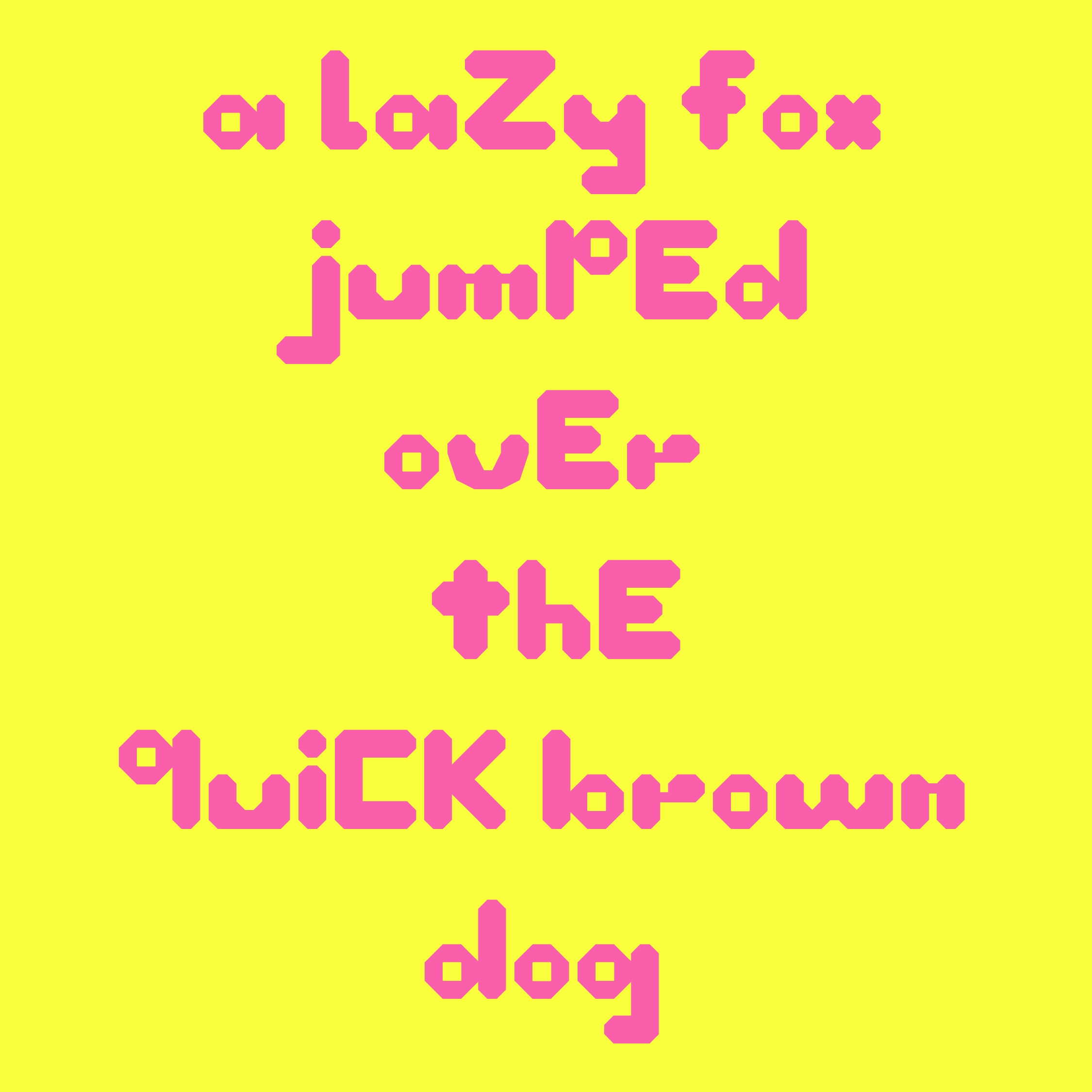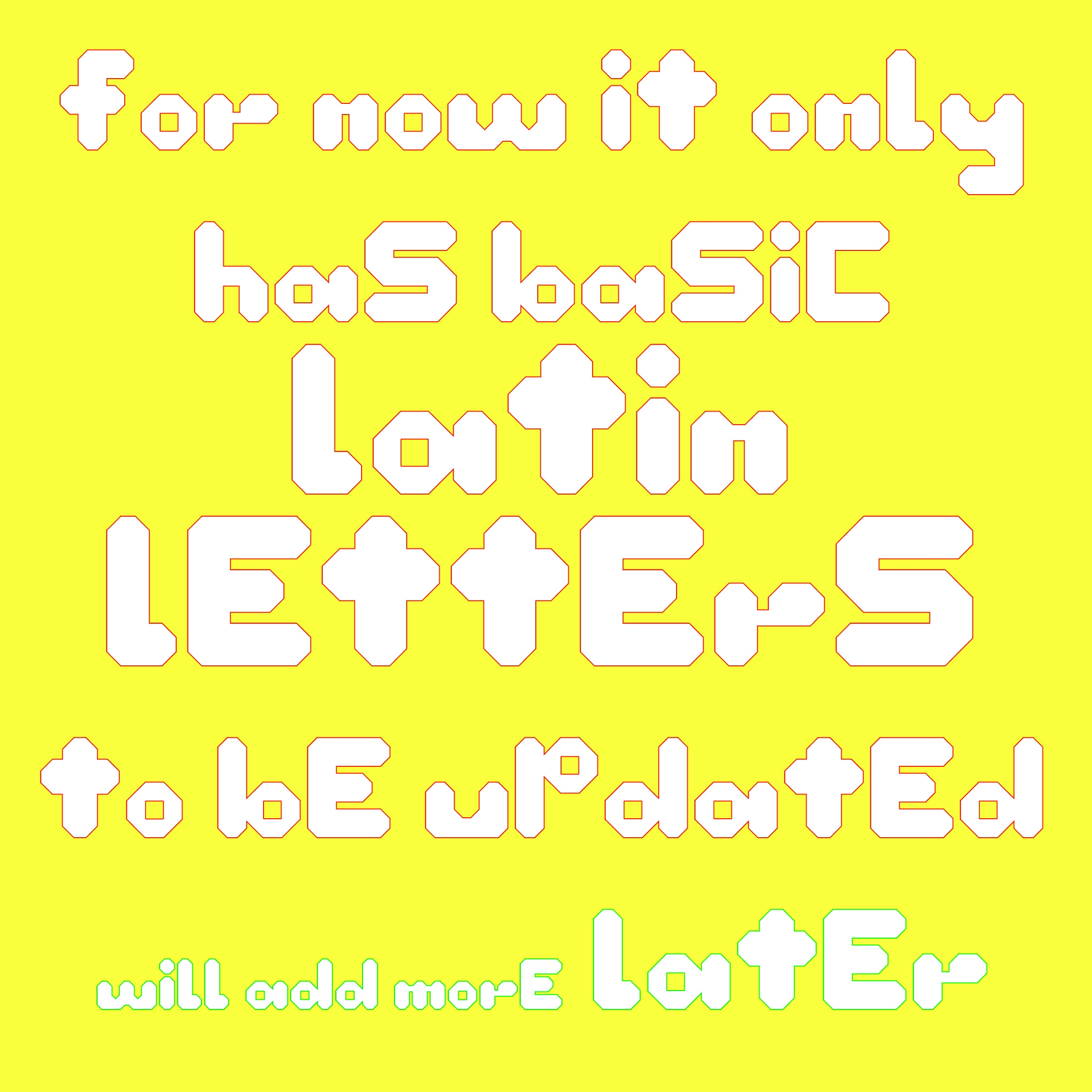
Mathigon is a result of a tiny experiment — "using tools not specifically made for type design to do type design", all characters are made with mathigon/polypad (an online tool for math-related education). It was fun but also very time consuming to make everything work, hence there is only basic Latin glyphs available. :)
Xiaoyuan Gao (She/Her) is a Rotterdam-based freelance graphic designer, image-maker, type designer and the initiator of “notyourtypefoundry”. While experimenting with unconventional approaches to type design and typesetting, she sees type design as a tool making process.